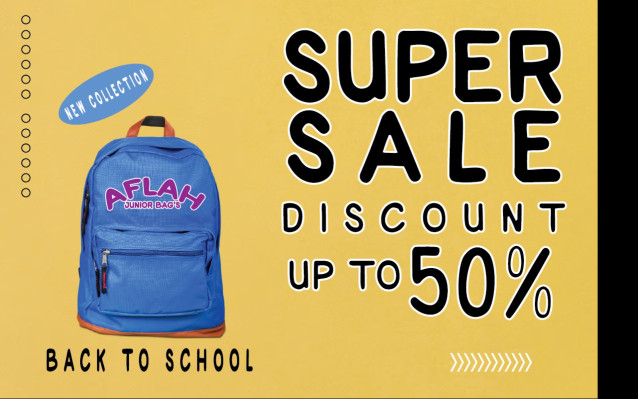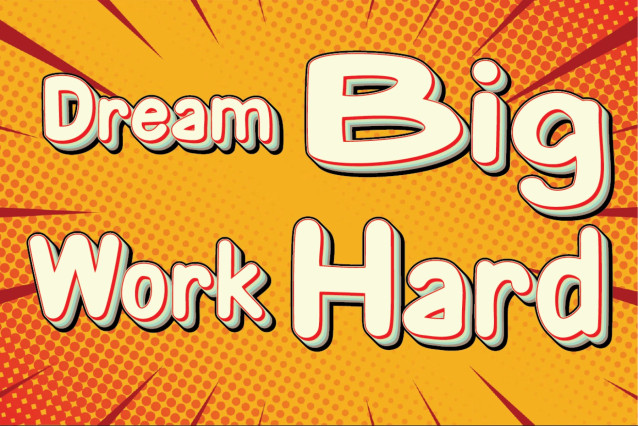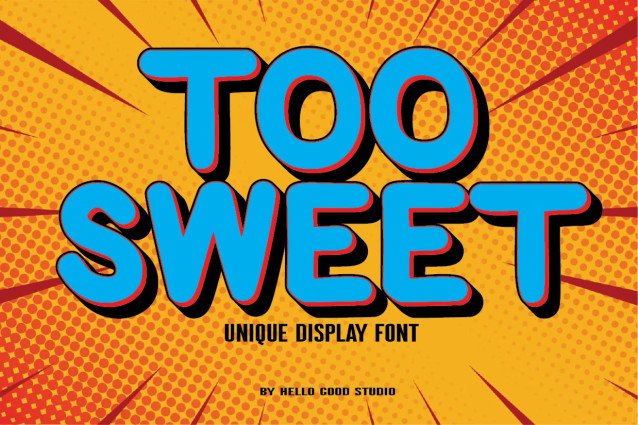
Too Sweets Font
Too Sweets Font is a chunky, comic, and cartoon display font. With its neat and joyful personality, this font will enhance any project you wish to create!